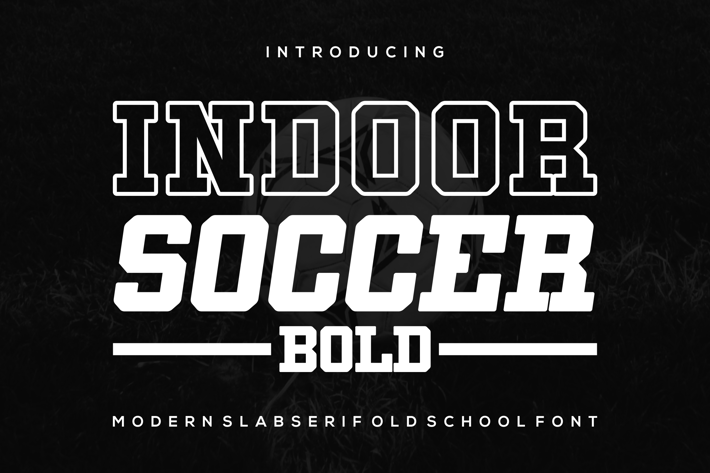
Indoor Soccer - Modern Slabserif Old School Font
Introducing our new product Indoor Soccer Font - Modern Slabserif Old School Font
Indoor Soccer Font- Modern Font is a bold and authentic display font. The font is suitable for any branding project like logo,
t-shirt printing, esport, and many more. outstanding in a wide range of contexts.
Indoor Soccer UPPERCASE
Indoor Soccer BOLD
Indoor Soccer ITALIC
Indoor Soccer OUTLINE